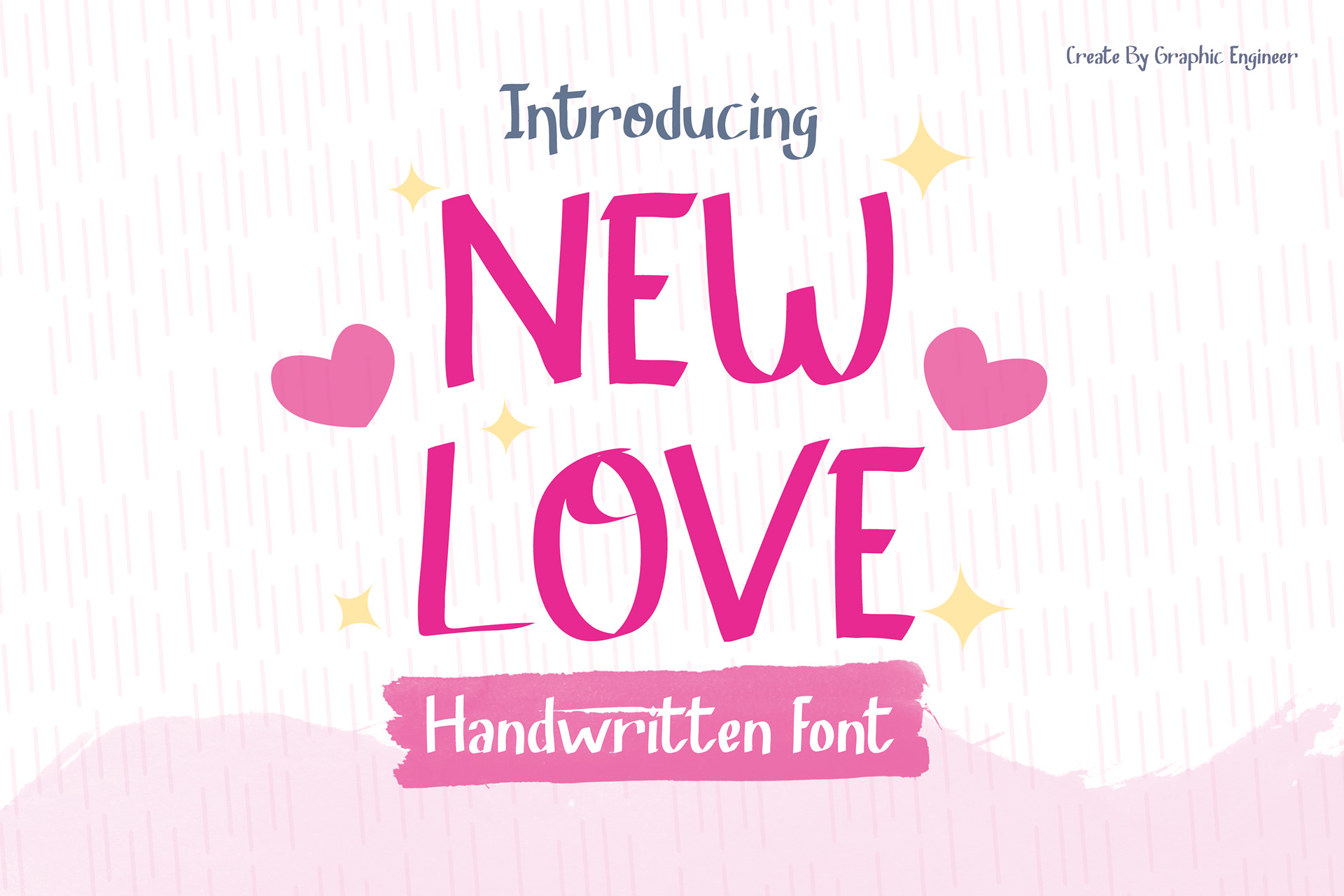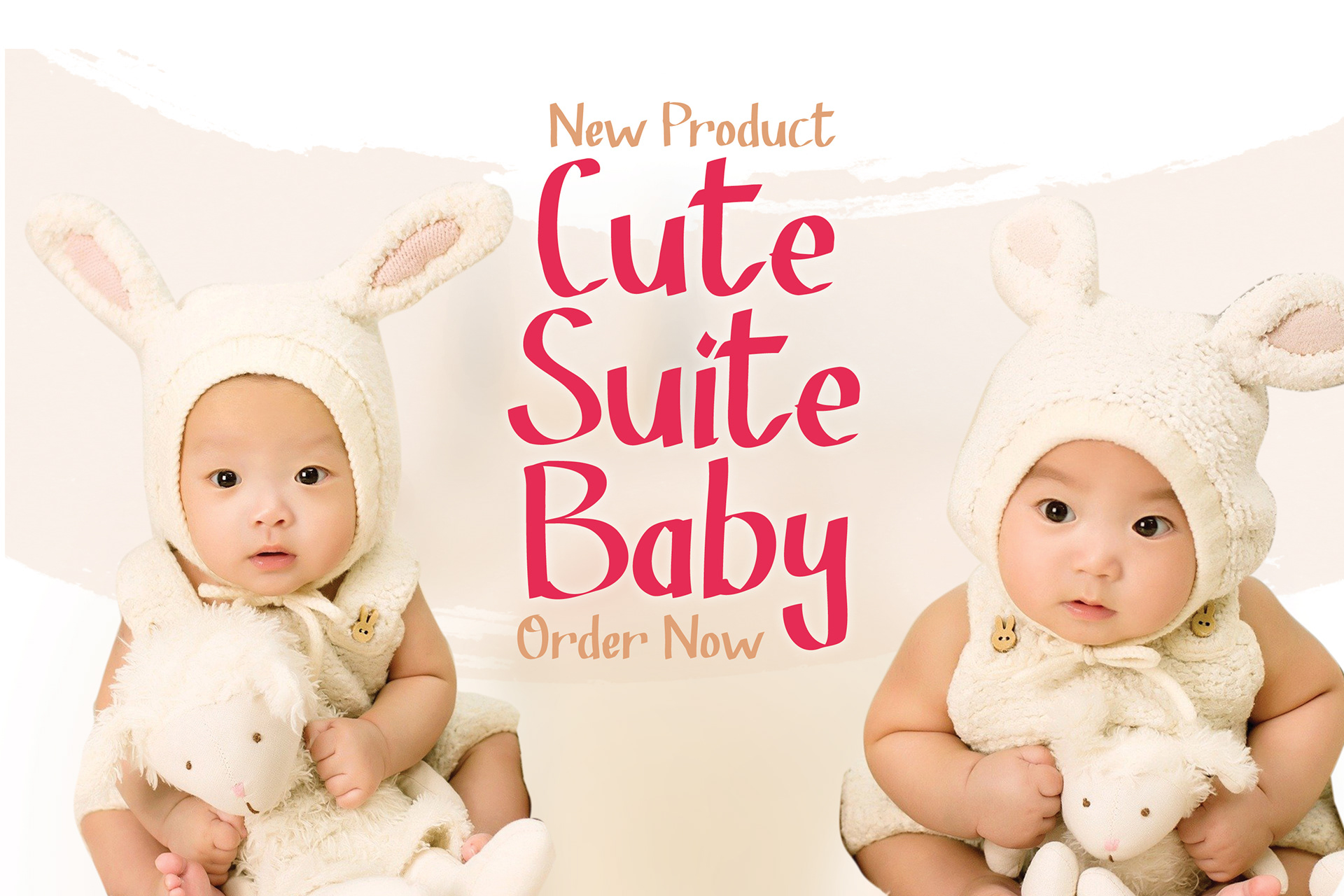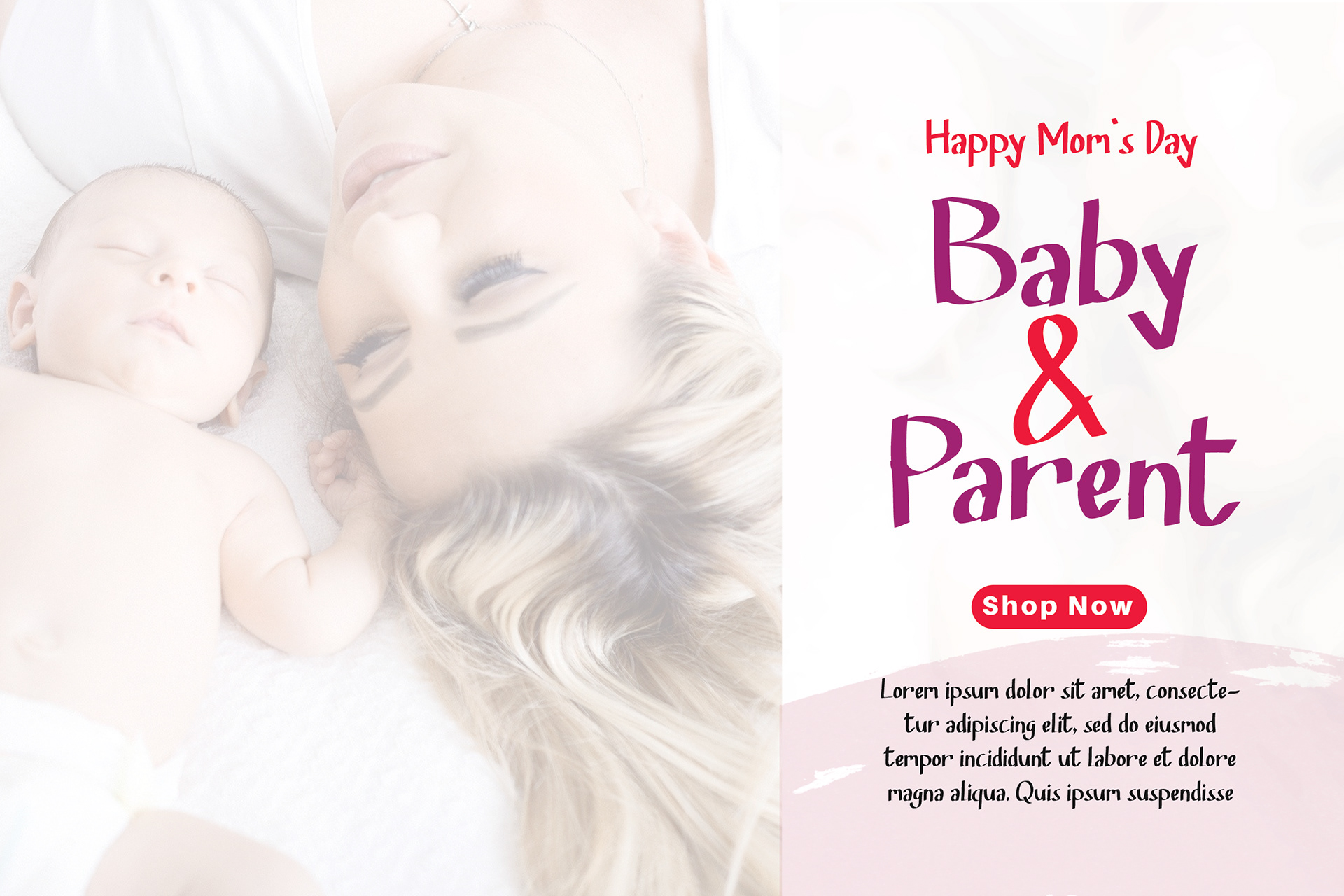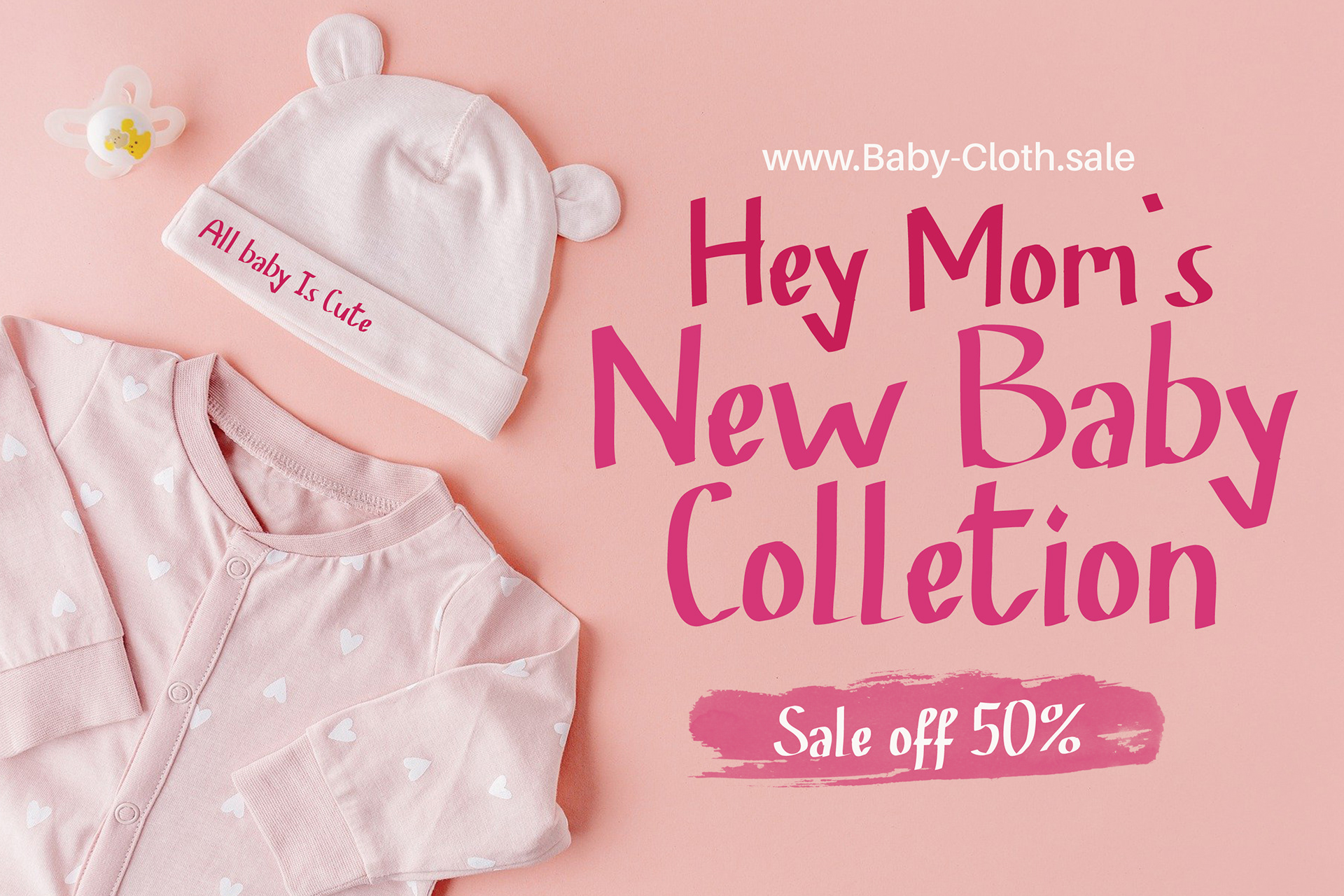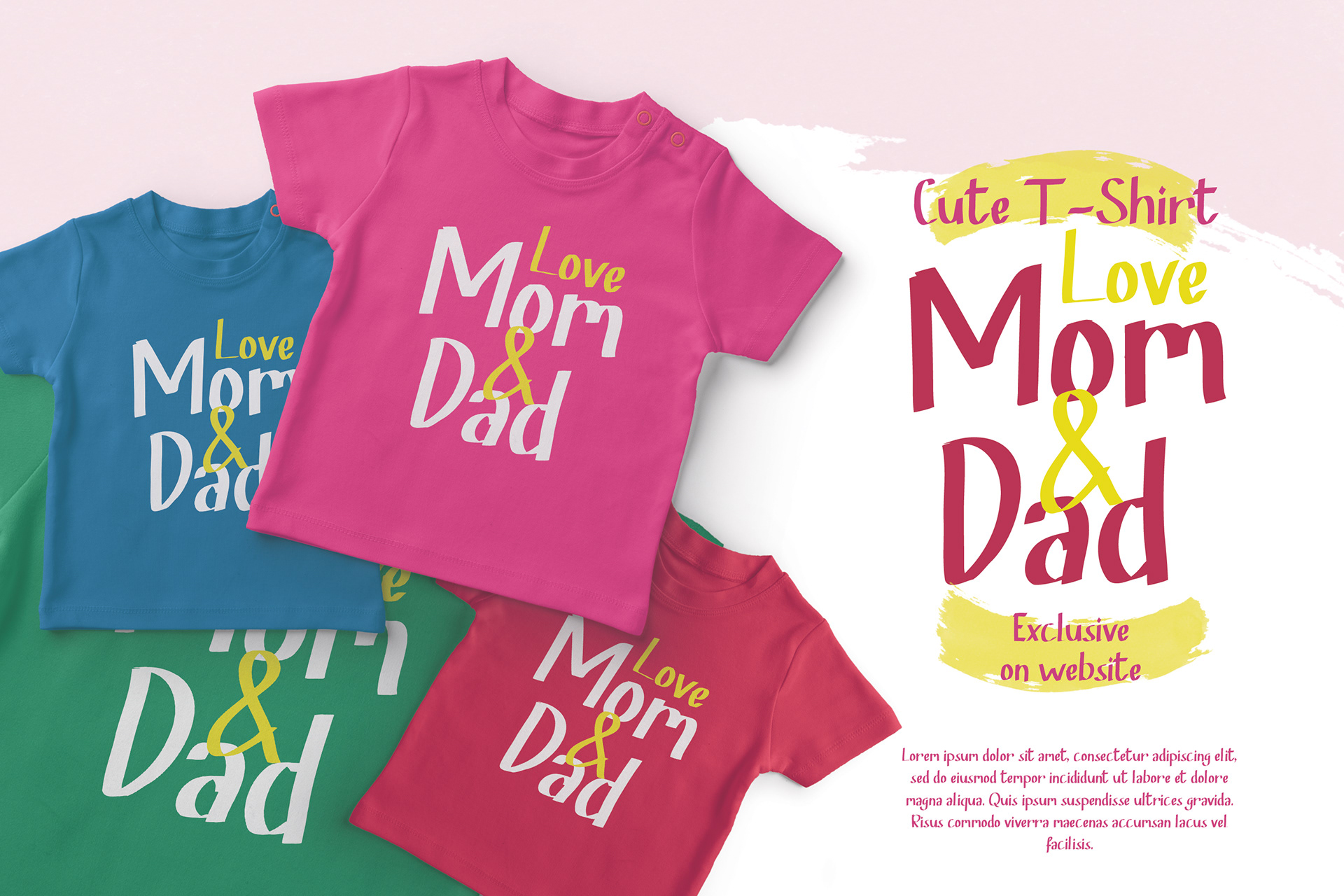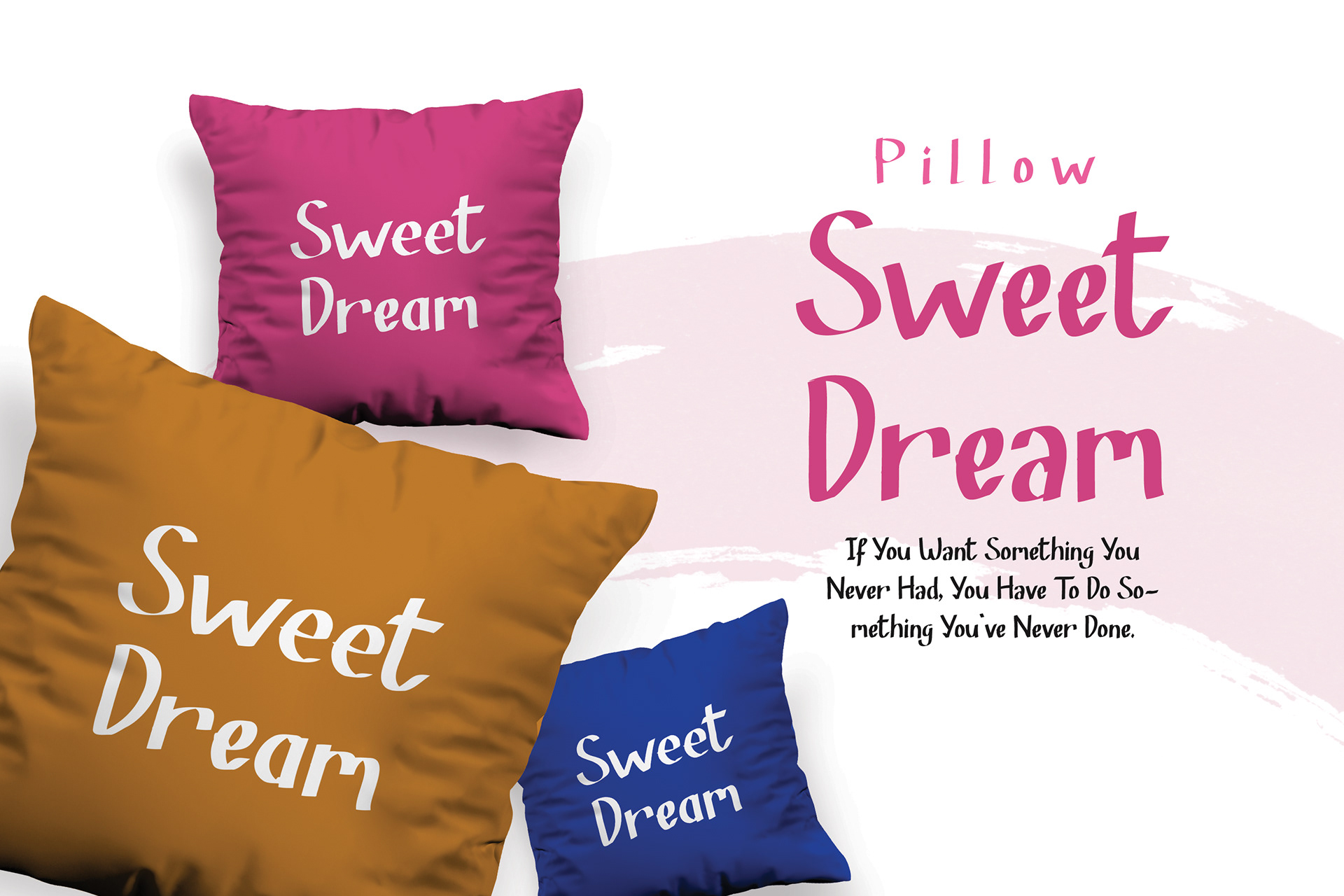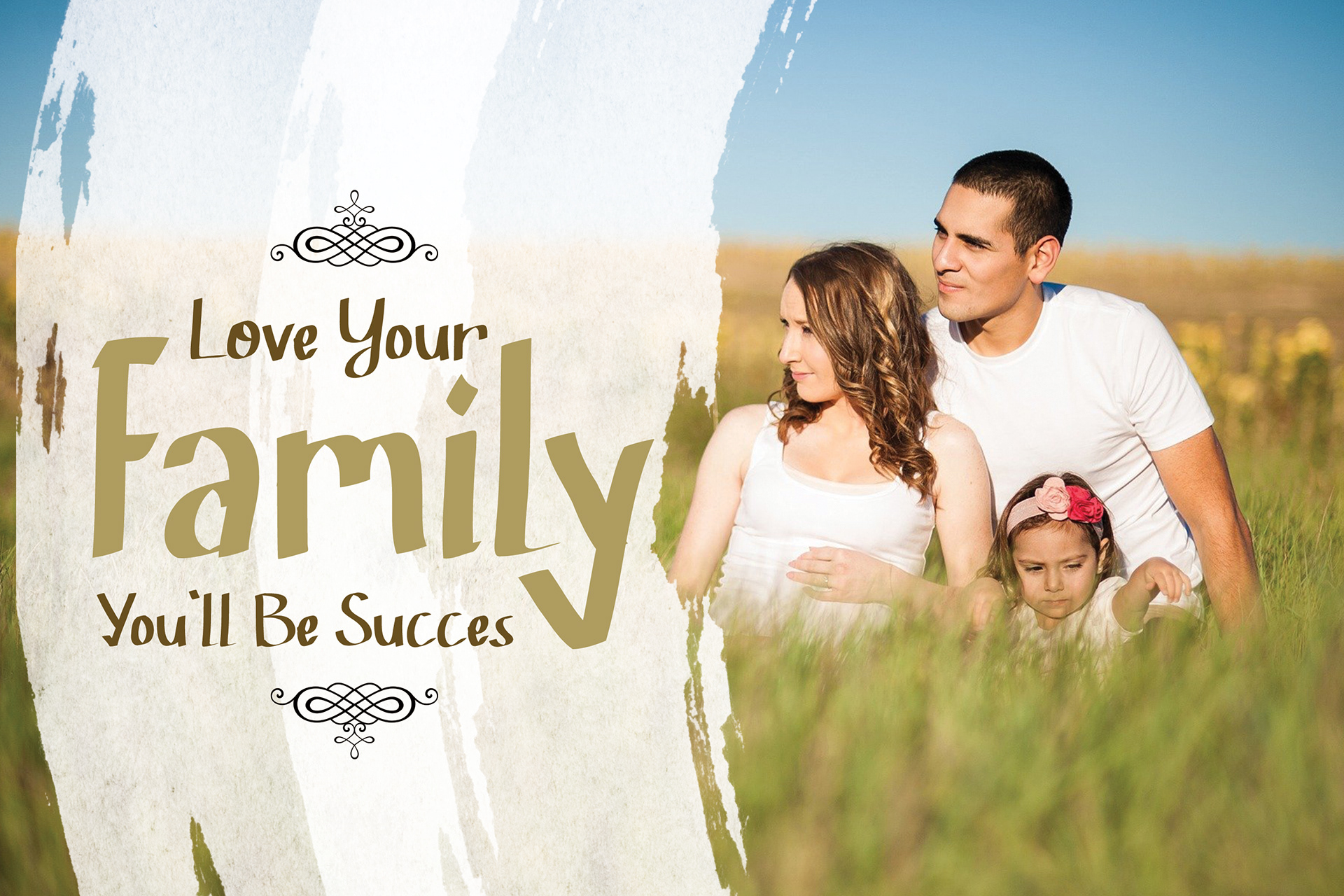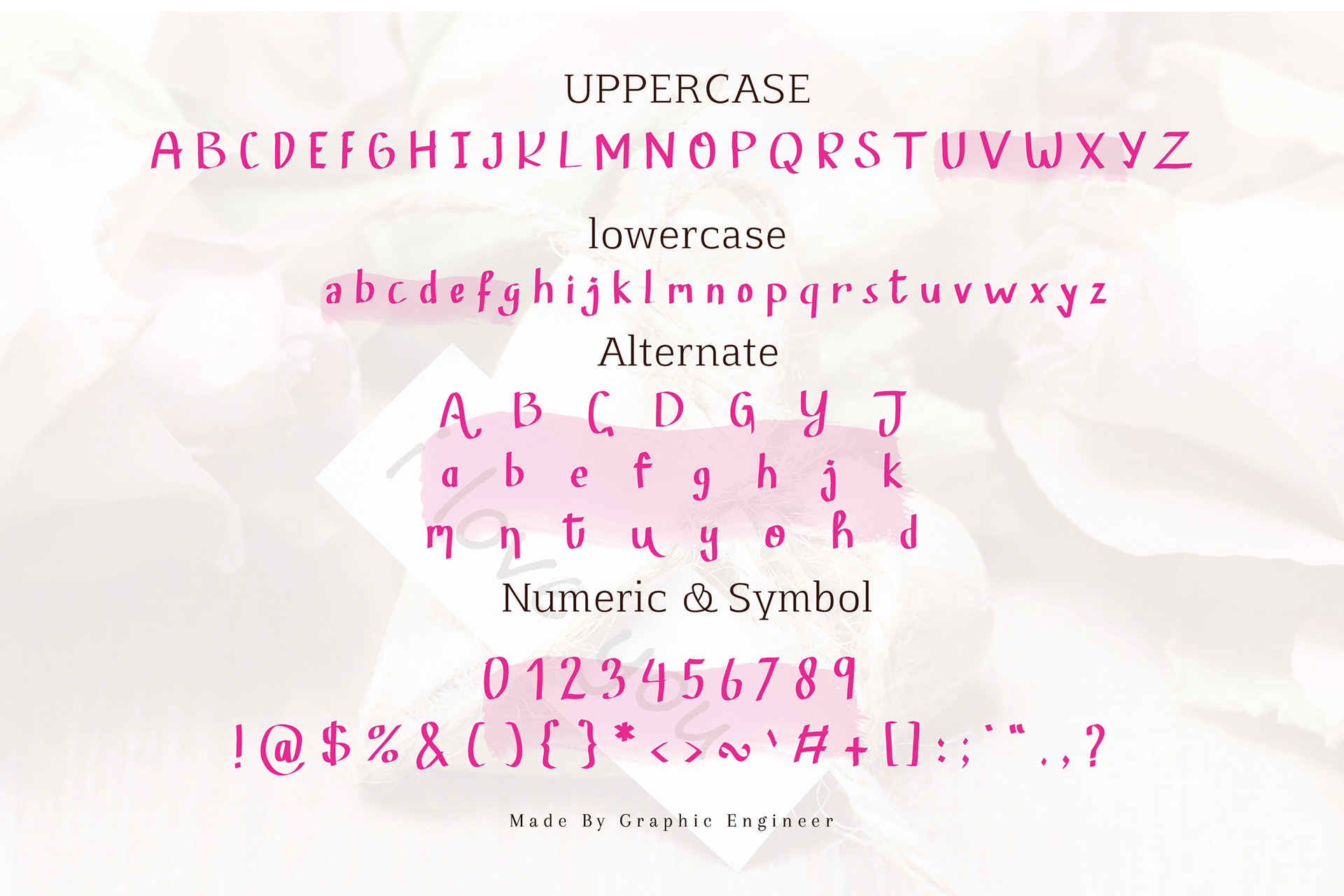
New Love - Handwritten Font
Introducing a beautiful handwritten font "New Love".
is a handwritten, which is combining element Girly, Elegant and Cute.
Give your designs an authentic handcrafted for cute message. “New Love” is perfectly suited to sweet or cute product.
is a handwritten, which is combining element Girly, Elegant and Cute.
Give your designs an authentic handcrafted for cute message. “New Love” is perfectly suited to sweet or cute product.
also good for merchandise,wedding, invitation, heading, cover, poster, logos, quotes, product packaging, header, Instagram Post, Billboard, event, social media & greeting cards and many more.
its help you to make great lettering Message.
Comes with feature :
- Uppercase
- Lowercase
- Alternate
- Number And Symbols
- Uppercase
- Lowercase
- Alternate
- Number And Symbols